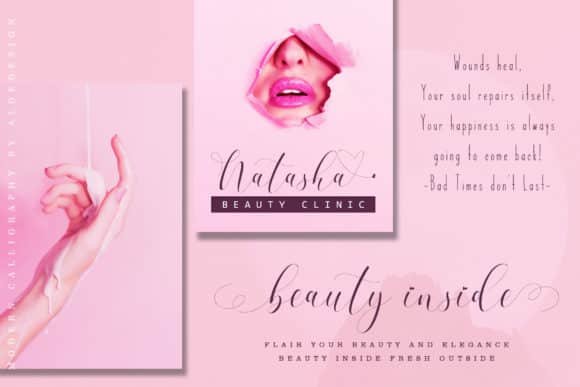
Calligraphy Fonts / FontsRefillia Calligraphy Font Download 08/04/2025 - by Awais Farooq Refillia Calligraphy Font is a stylish and romantic handwritten font with a lot of authentic charm! Get inspired by its bold swashes. Related Posts:The Sweet Valentine FontLatest Bling FontThe Trending Love Bubble FontDownload Calote FontStylish Coffee Cup PSD MockupsCarina Astrea FontFree Angelicha Font DownloadThis is Grandma Font Delightful Napkin FontAbigate Desgo FontMibery Retro Bold Serif: Timeless Elegance FontBest Migroska Font Download Sunday Eighties Font DownloadRosaline Marige FontThis is Bubble Rainbow Font